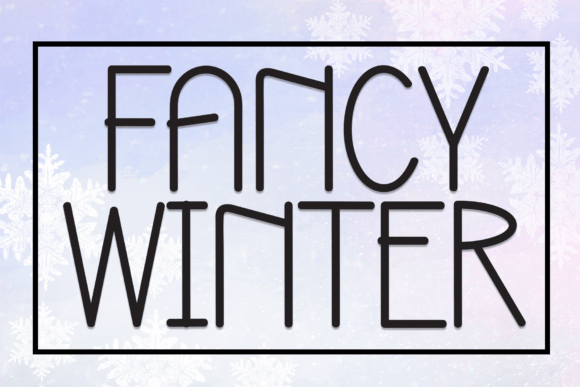
Introduction to Fancy Winter Font
Fancy Winter Font offers exceptional quality and versatility, making it a valuable addition to your design toolkit. Whether you’re creating for personal projects or commercial use, Fancy Winter Font delivers professional results.